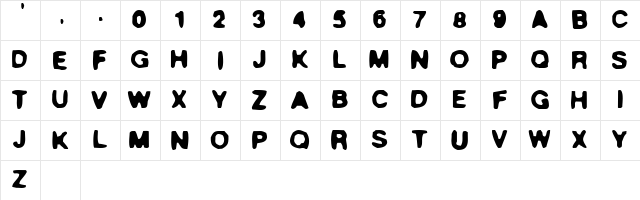
True Stories Regular Free Font
True Stories Regular
Design Context for True Stories
True Stories is a composed and adaptable typeface that performs quietly and consistently across a wide range of design contexts.
Pro Tip: Use True Stories in both headline and body roles to test its range before committing to a single application.